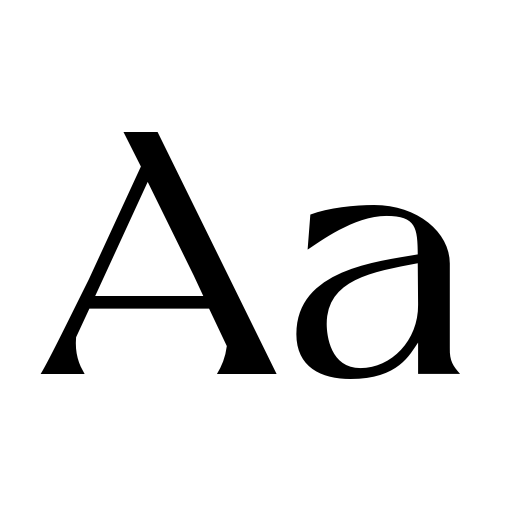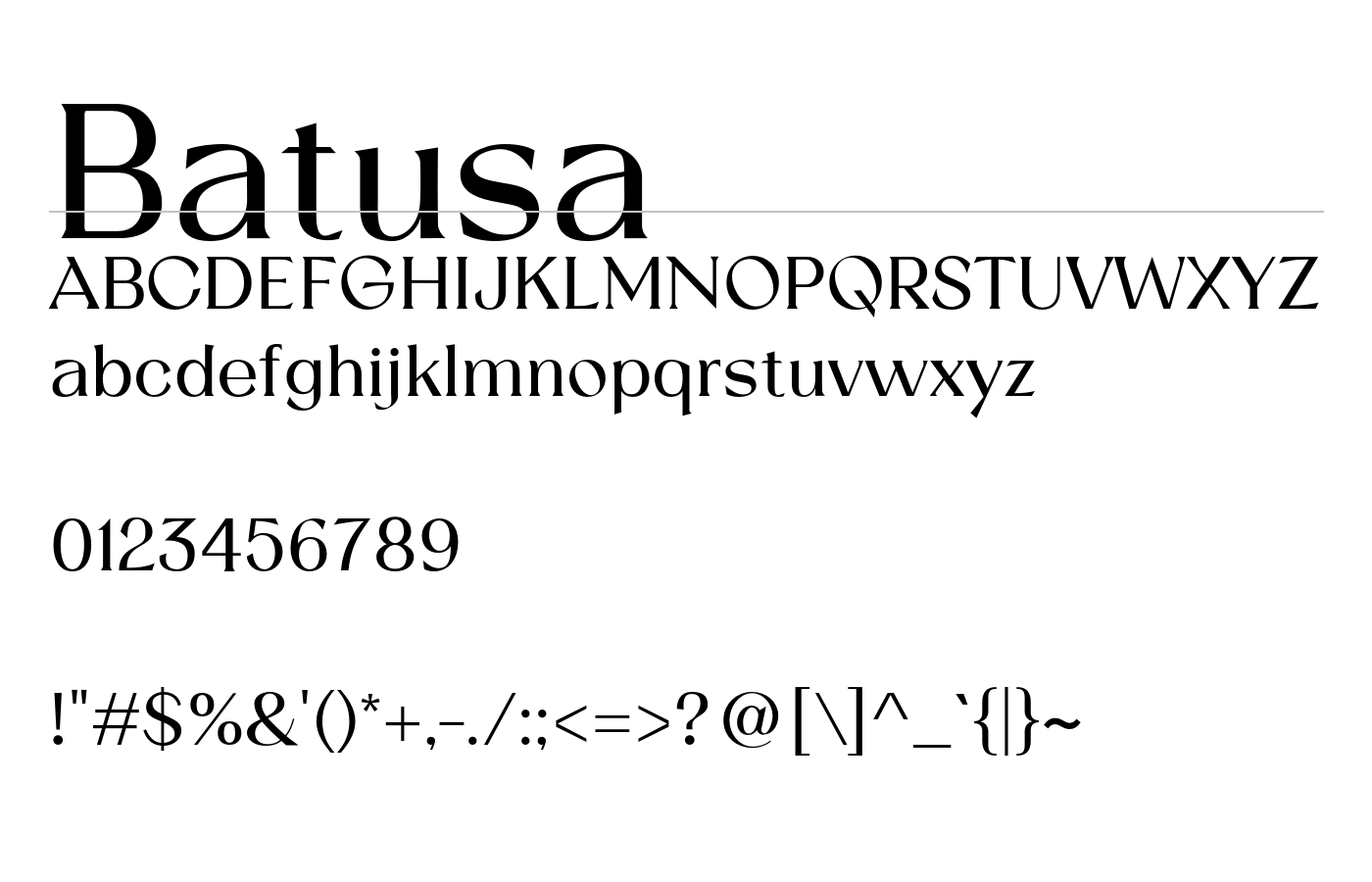
Batusa is an elegant serif font with a refined Didone style characterized by high contrast between thick and thin strokes and thin, unbracketed serifs. It features a classic feel with balanced proportions, single-story lowercase letters, and distinctive letterforms that lend a sophisticated and timeless look. Ideal for luxury branding, editorial headlines, and upscale packaging, Batusa brings a sense of formality and style to any design.
Batusa Font
About Batusa Font
| Font family | Batusa Font |
| Designer | Abdul Artega |